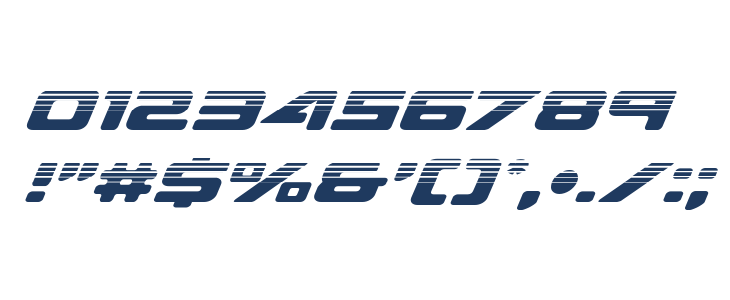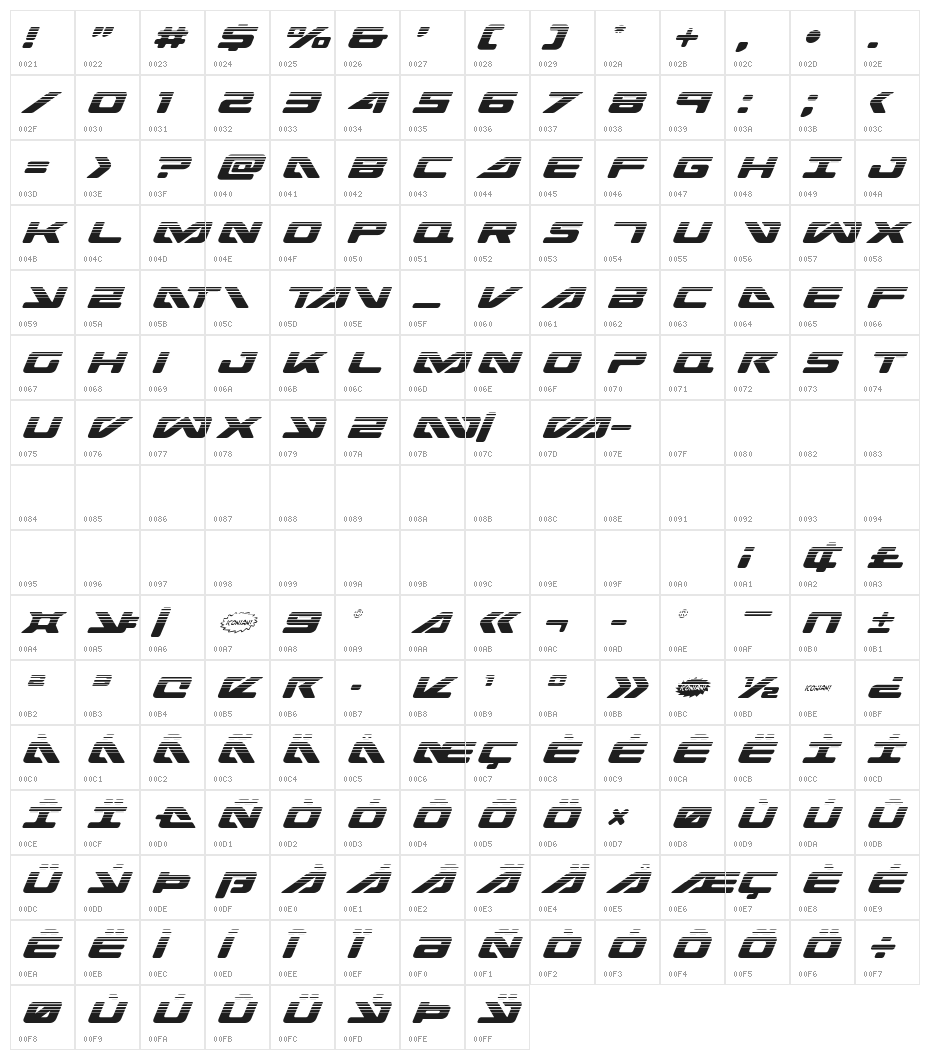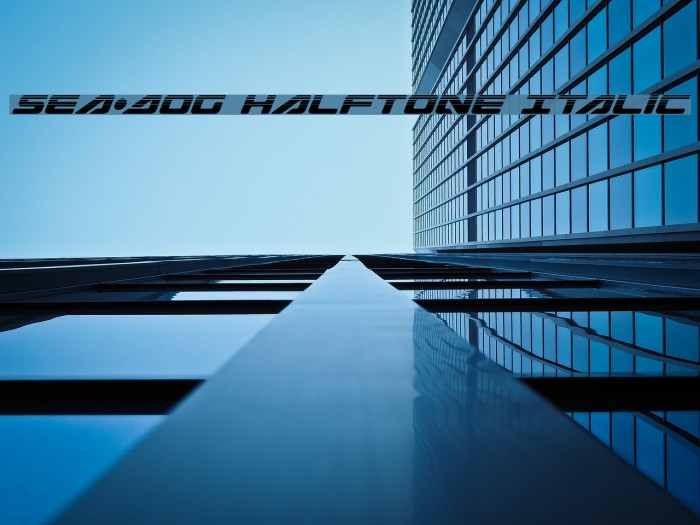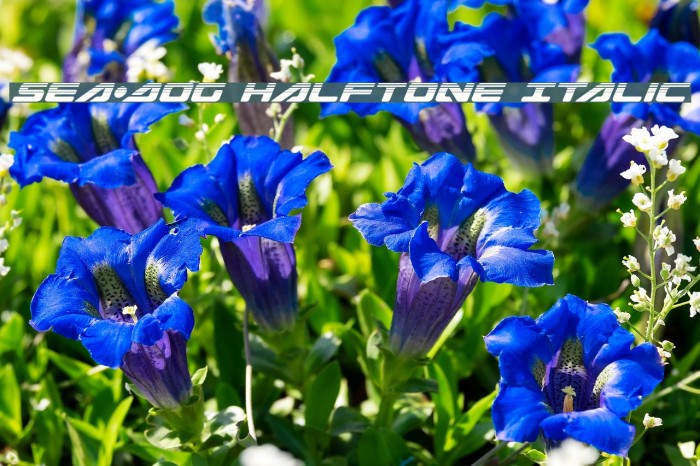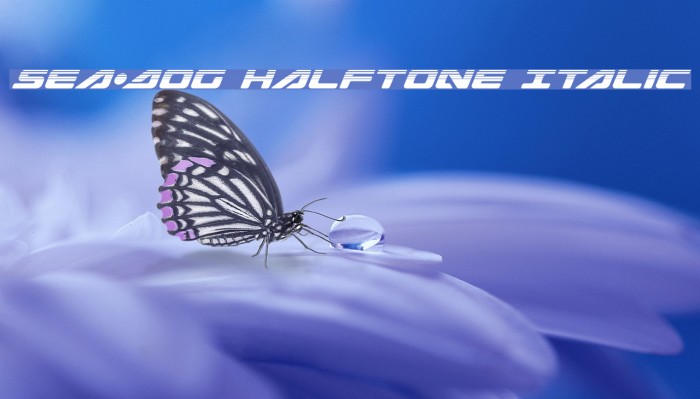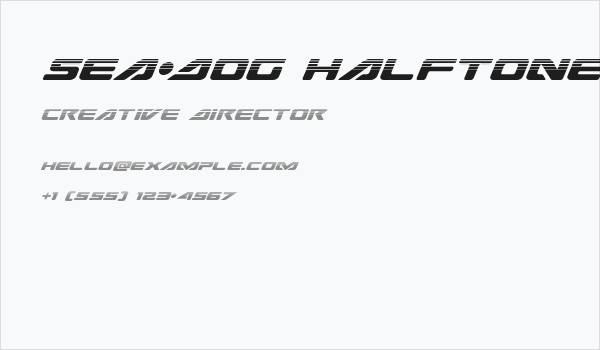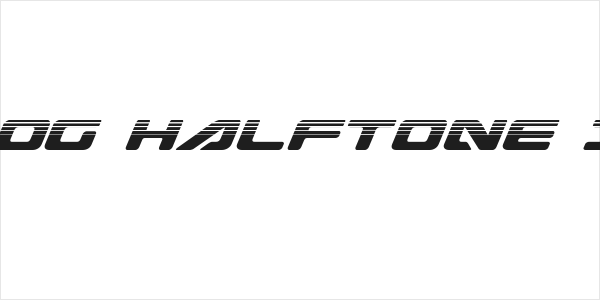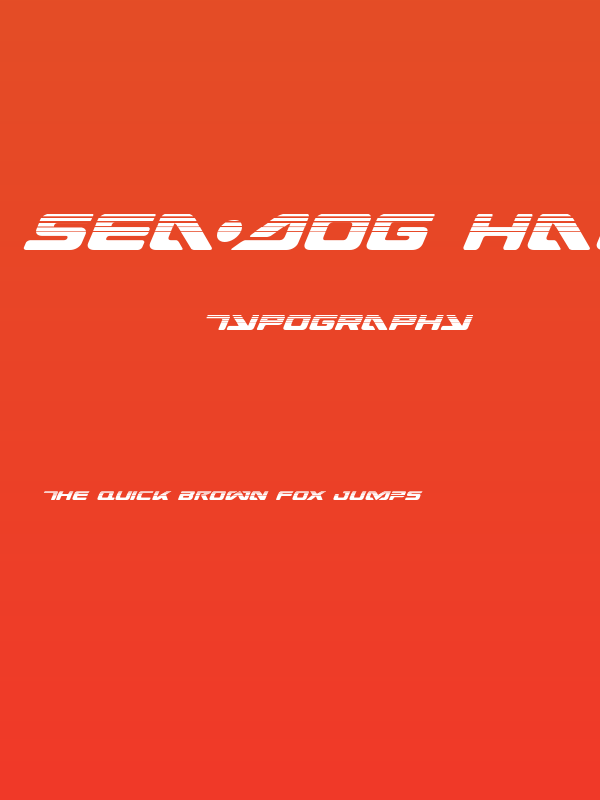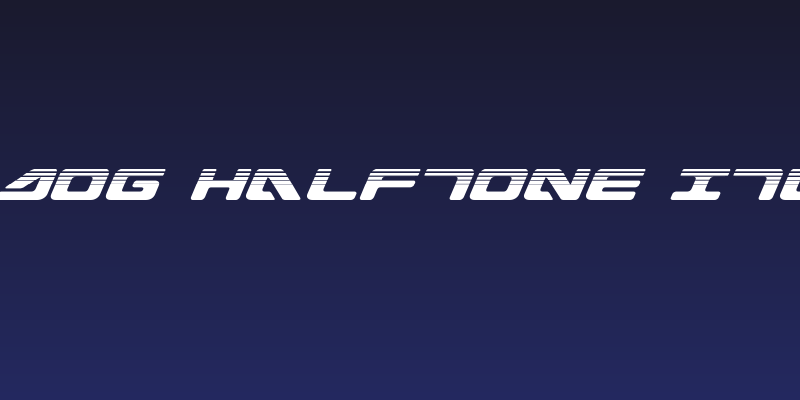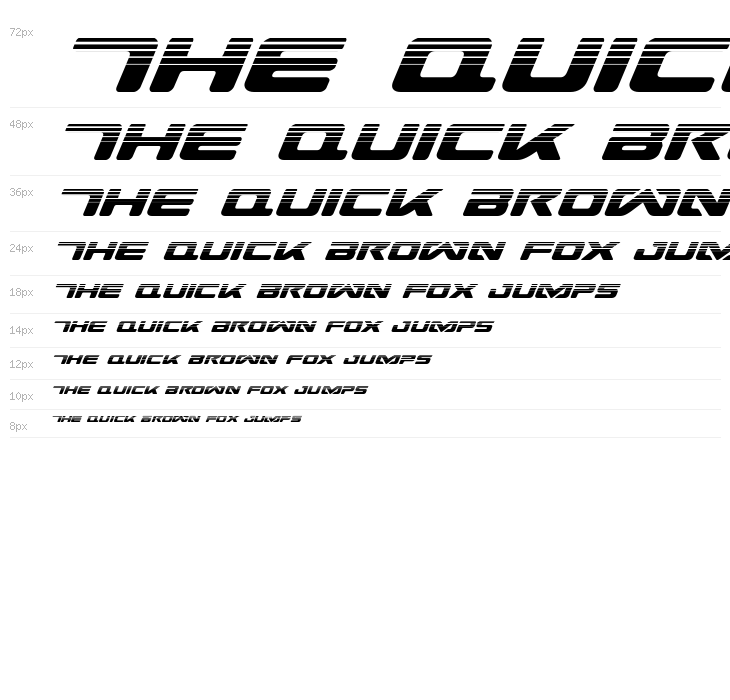
Sea-Dog Halftone Italic Font
Sea-Dog Halftone Italic Description
This font features a bold, italicized style with a distinct halftone pattern that gives it a dynamic and futuristic appearance. The characters are designed with a series of horizontal lines that create a sense of movement and energy. The uppercase and lowercase letters maintain a consistent style, with sharp angles and a slanted orientation that enhances the italic effect. The numerals and special characters follow the same design principles, ensuring uniformity across all glyphs. This font is particularly eye-catching and is likely to stand out in any design project.
Overall StyleFuturistic, Dynamic
Proposed ProjectsIdeal for projects requiring a modern, energetic look, such as sports branding, tech-related designs, or futuristic-themed posters.